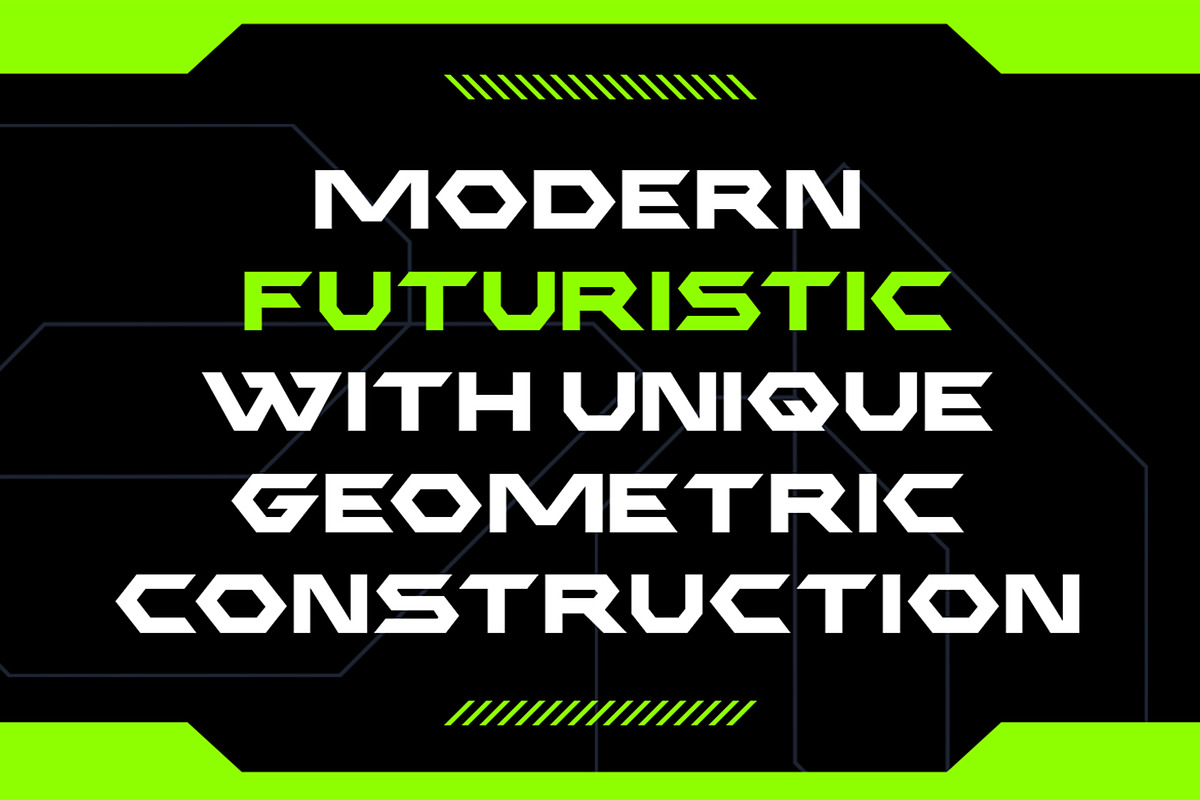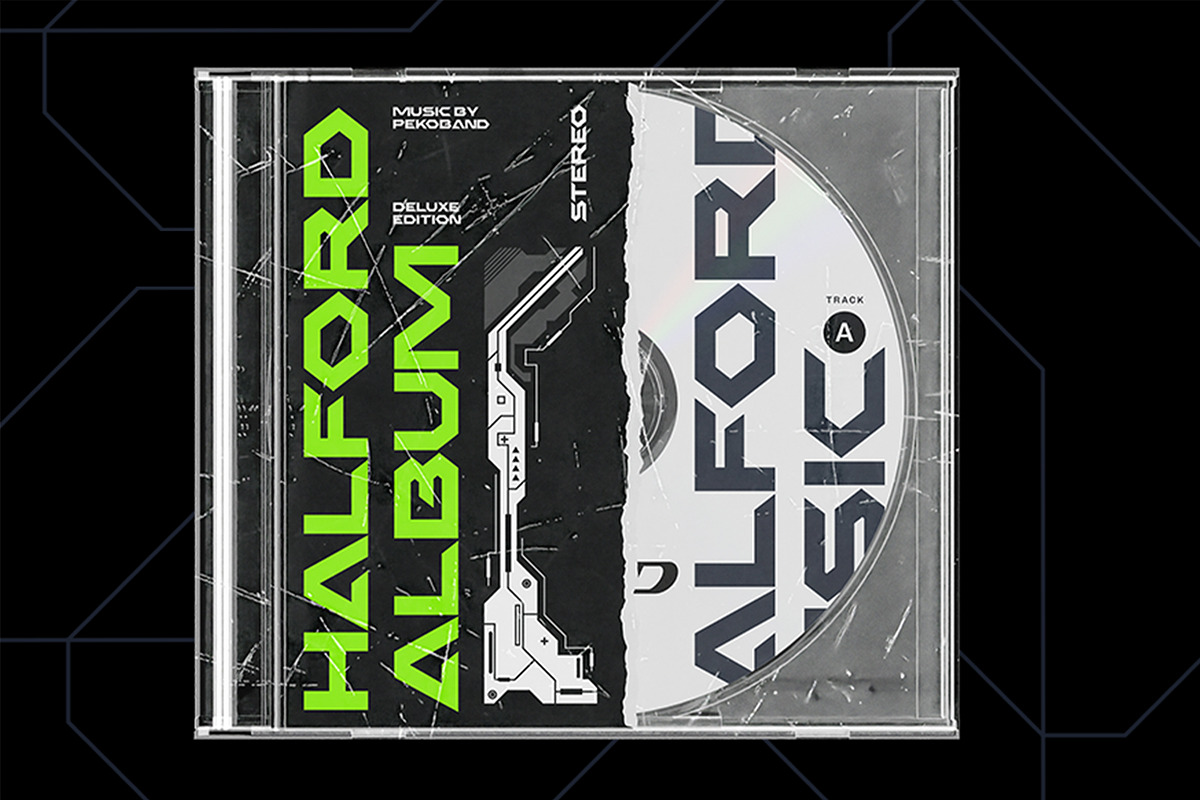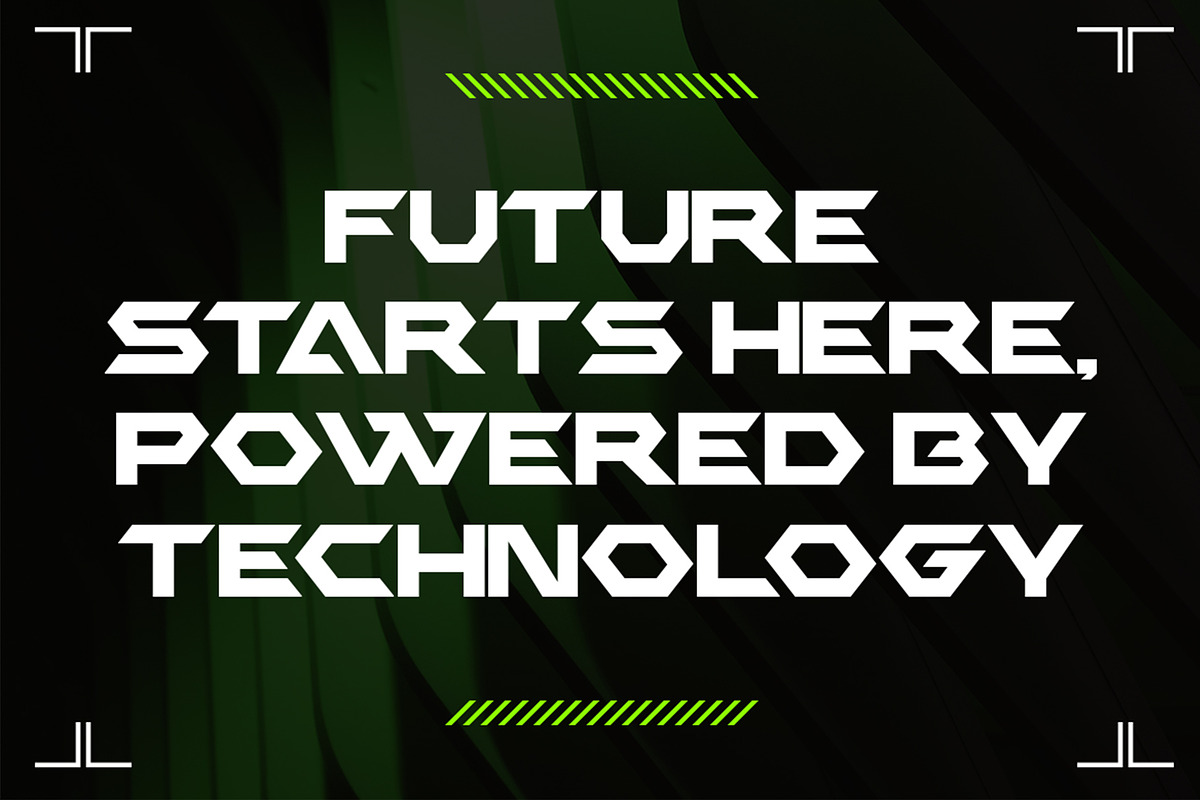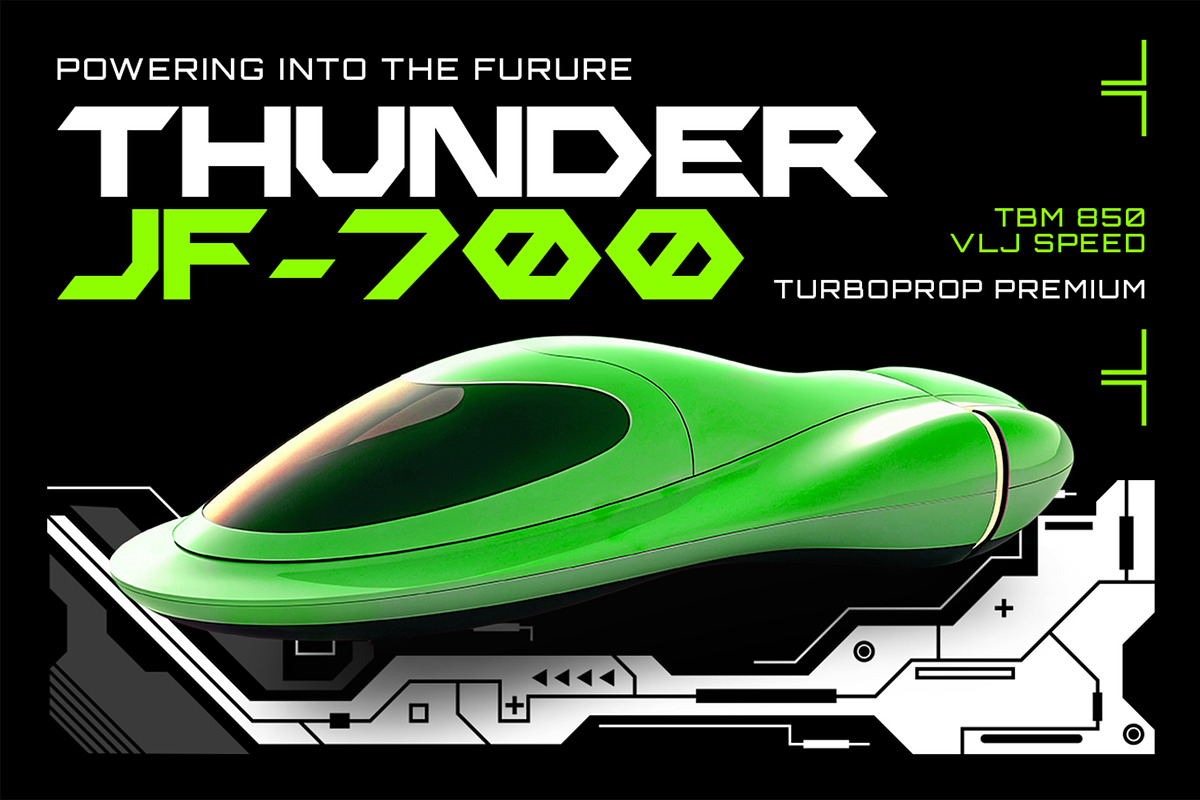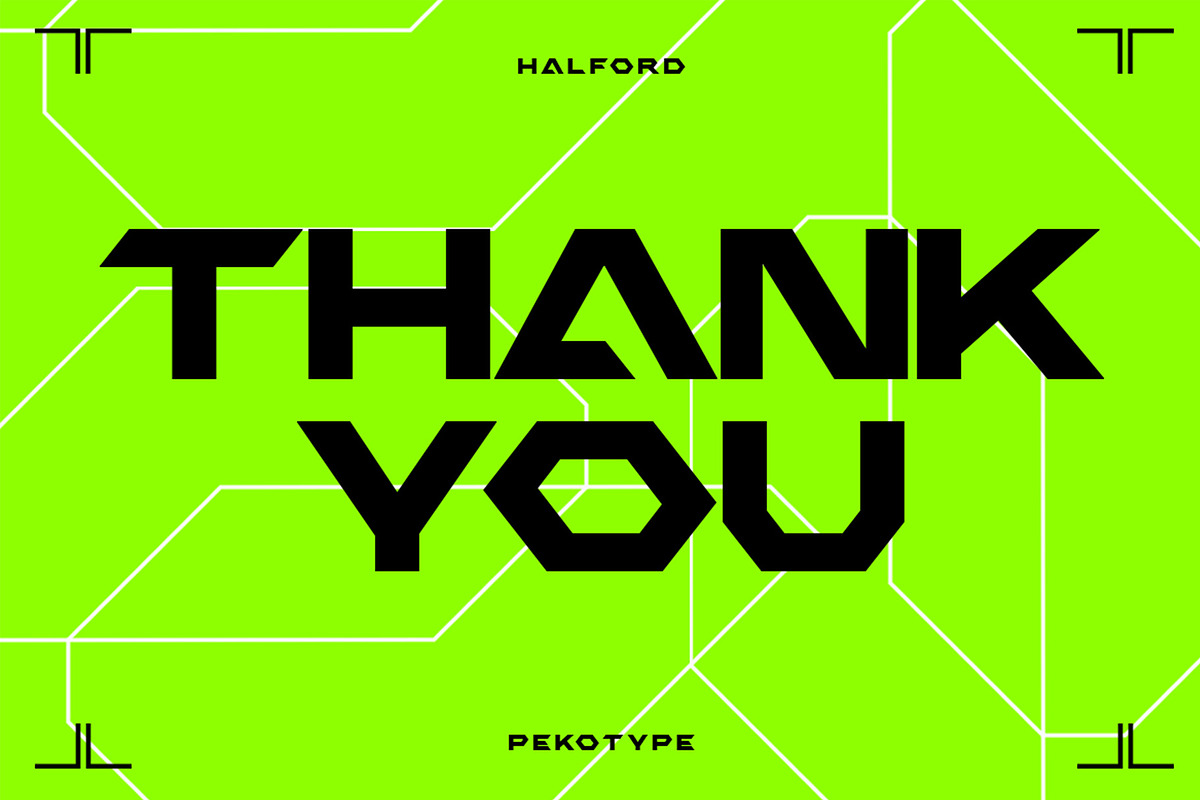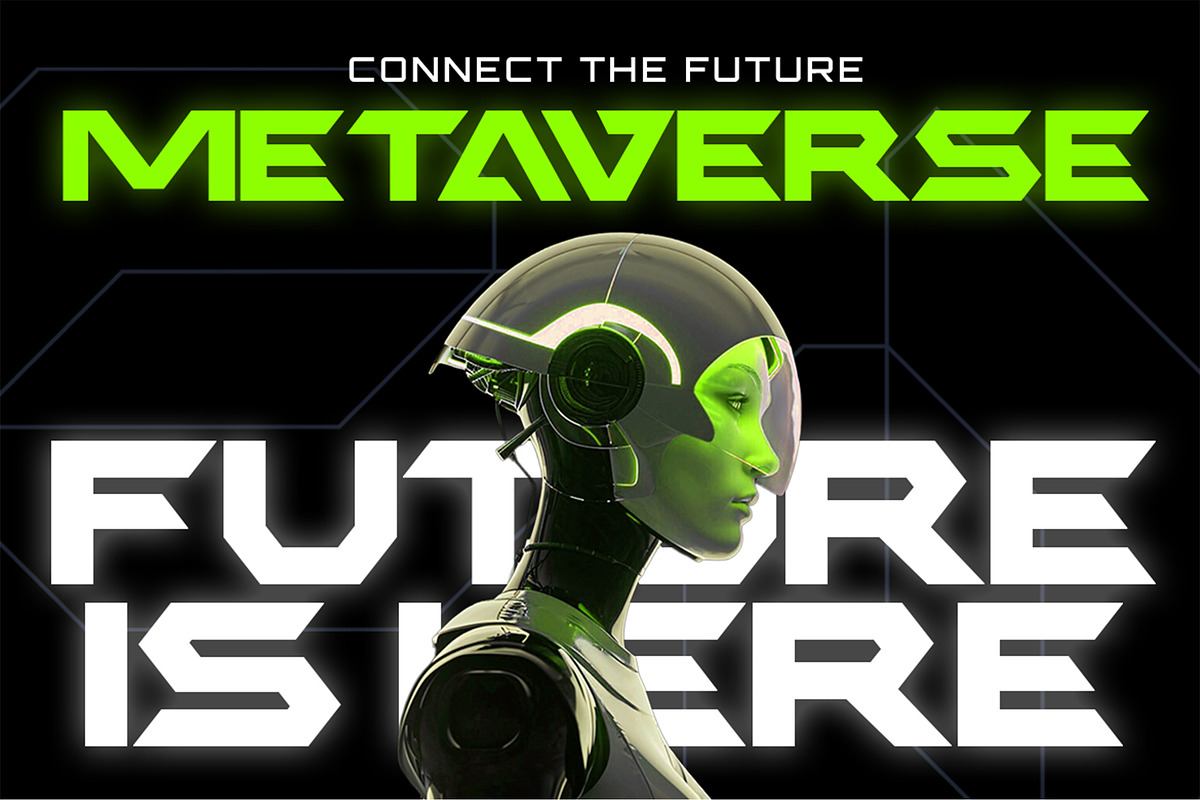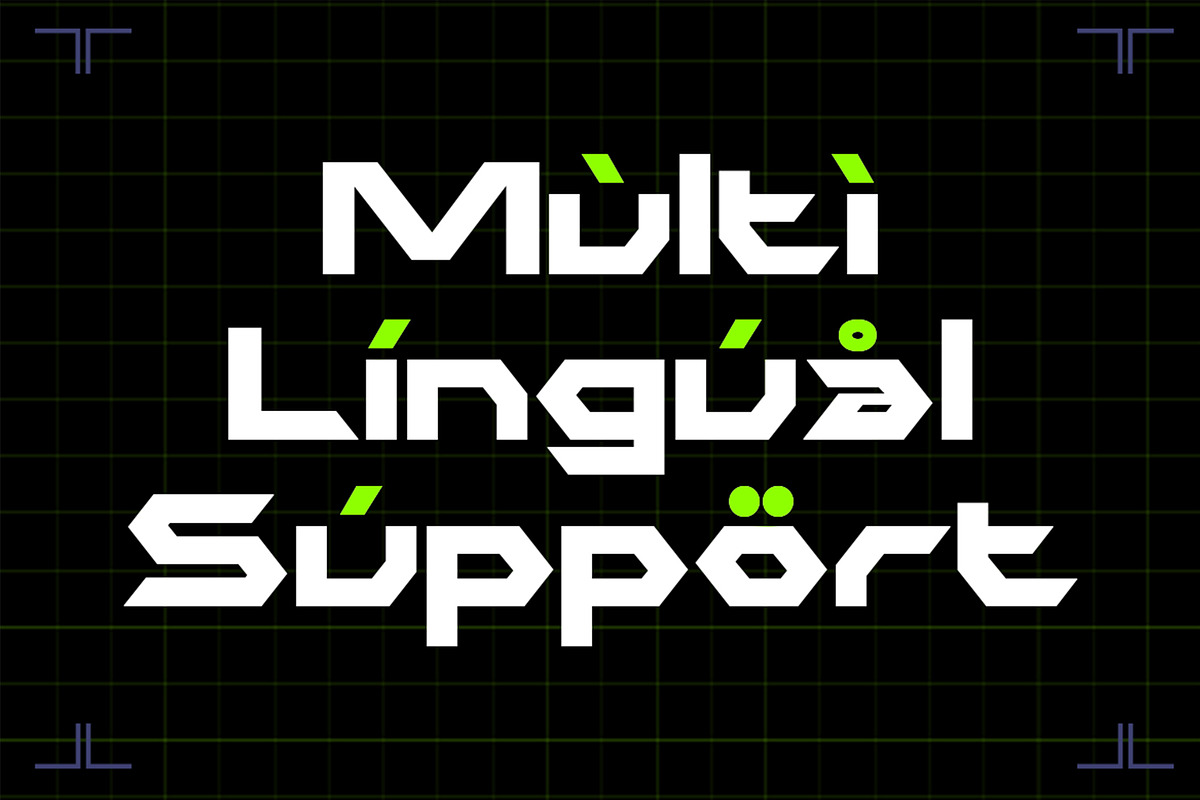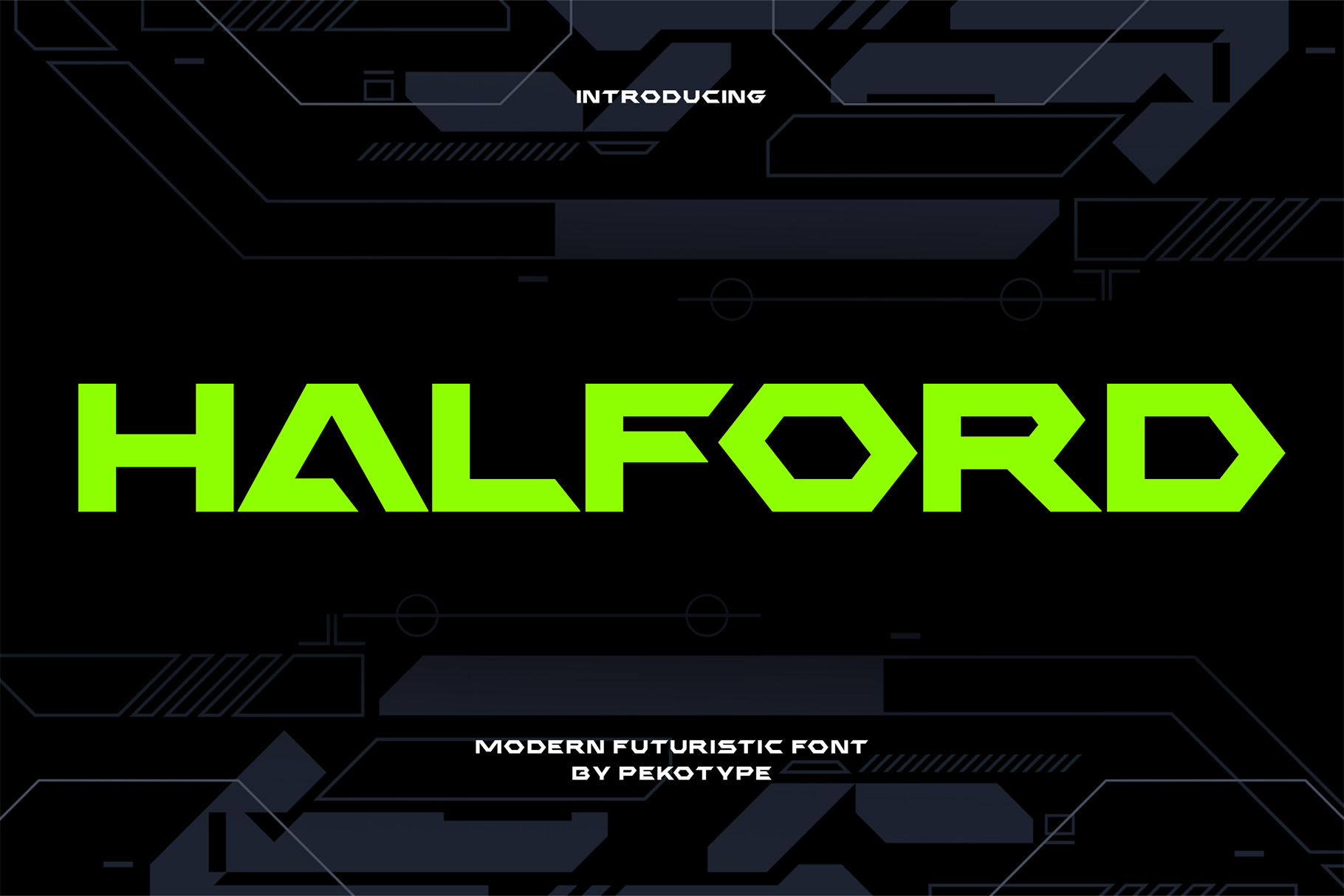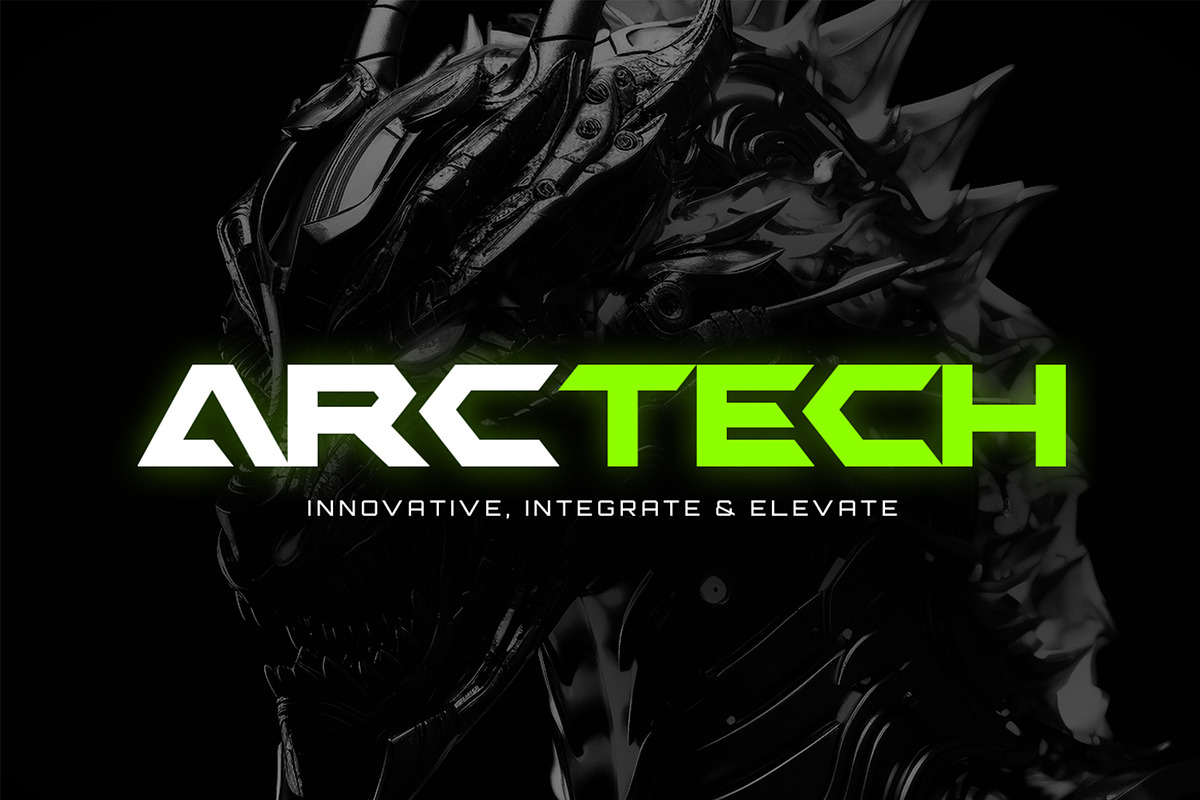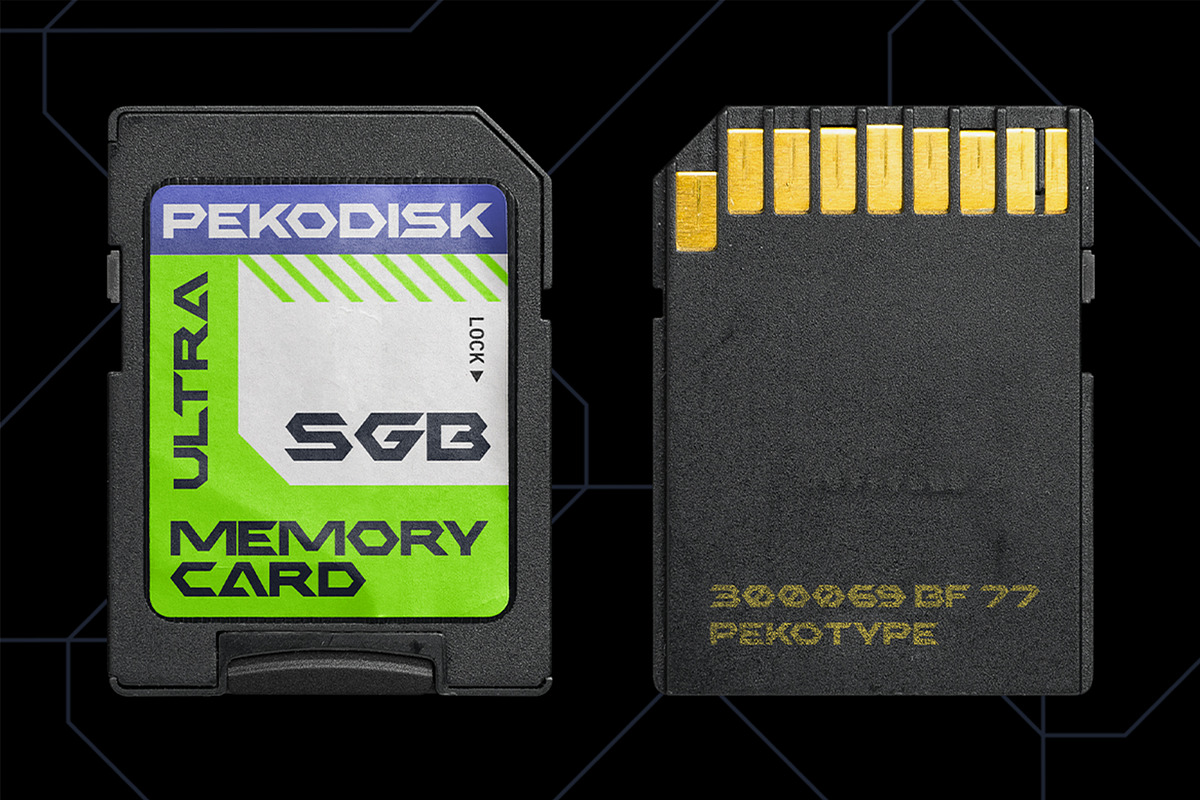
Halford – Futuristic Geometric Font
Halford – Modern Futuristic Geometric Font
Step into the future with Halford, a modern and futuristic geometric typeface built for bold visual impact. Designed with precision and clean construction, Halford perfectly blends strong shapes and sleek details to create a dynamic and innovative look.
This font brings a sense of technology, digital progress, and cyber aesthetics—ideal for branding, logos, gaming titles, product packaging, tech startups, and social media graphics. Featuring both uppercase and lowercase letters with multilingual support, Halford gives you the flexibility to create standout typography for global audiences.
Whether you’re designing for the metaverse, sci-fi projects, AI branding, or futuristic campaigns, Halford is the perfect choice to make your visuals look powerful, intelligent, and ahead of its time.
Bring your next project into the digital era with Halford – the future of modern typography.